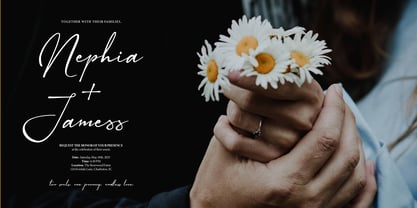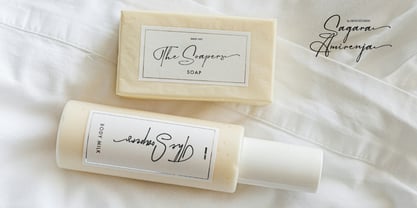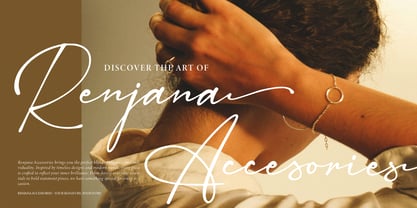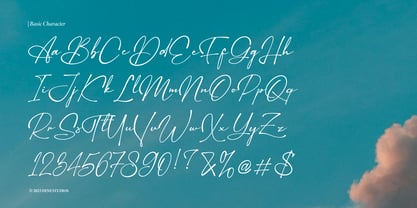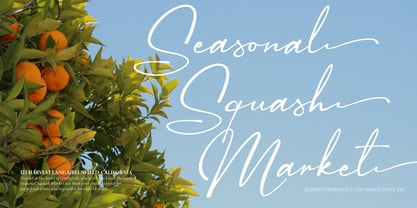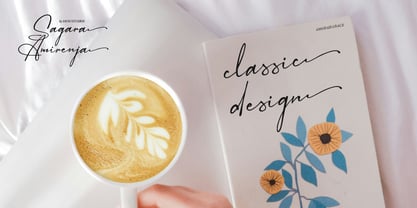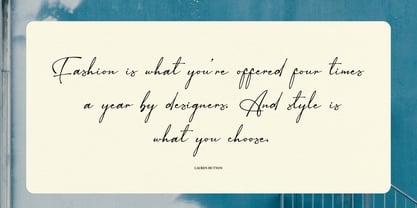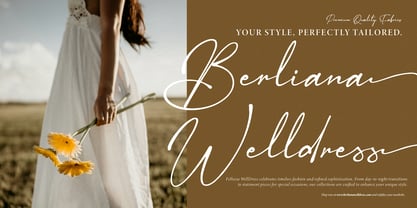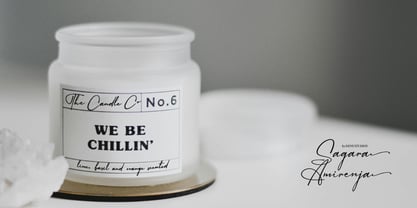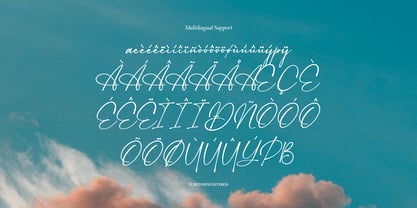
Sagara Amirenja
by Denustudio
Sagara Amirenja | New Classic Signature, from Denustudios, suitable for any projects such as: logos, branding projects, homeware designs, product packaging, mugs, quotes, posters, shopping bags, t-shirts, book covers, name card, invitation cards, greeting cards, label, photography, watermark, special events, and all your other lovely projects that need a New Classic Signature taste.
• Regular and Italic
• Standard glyphs
• Alternate and Ligature
• Fonts include multilingual support